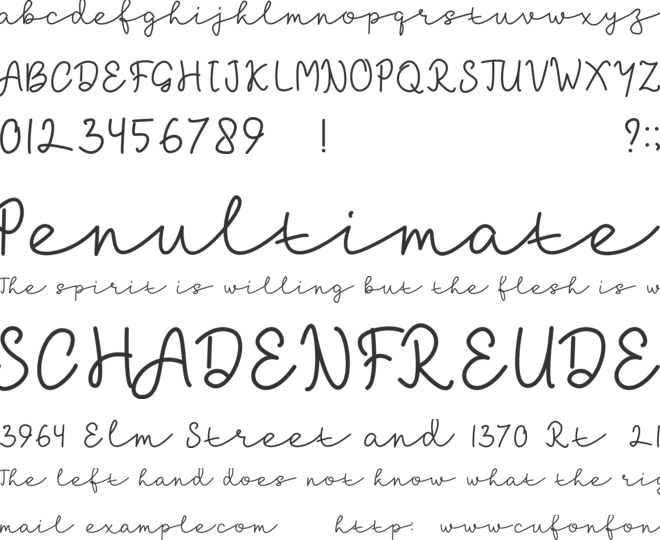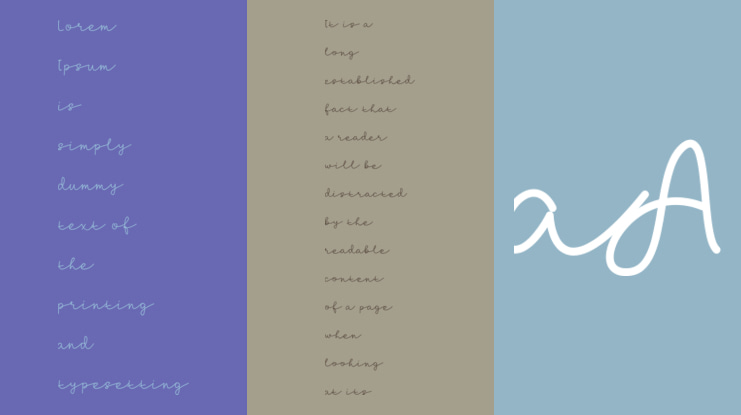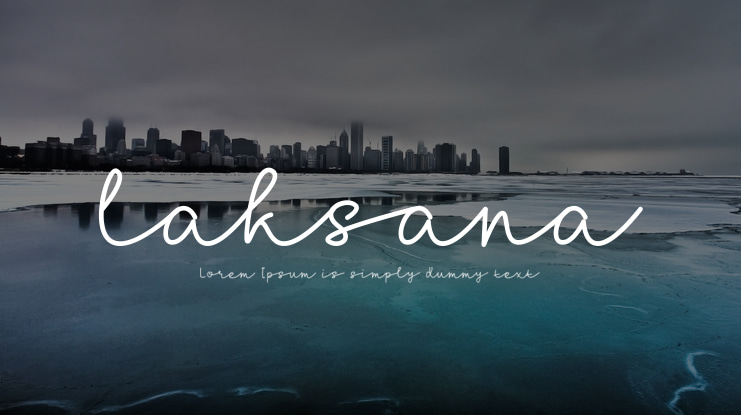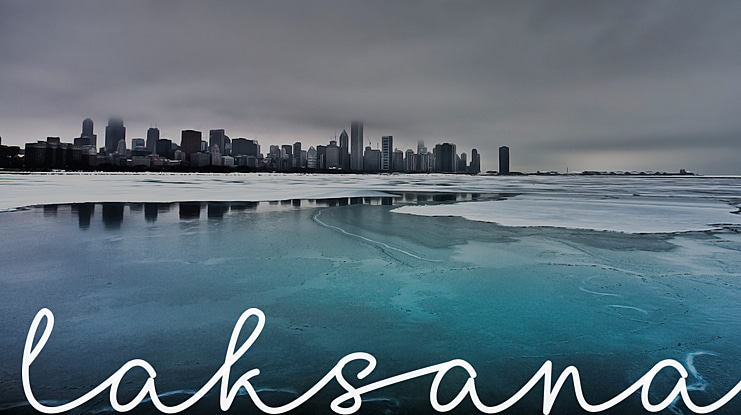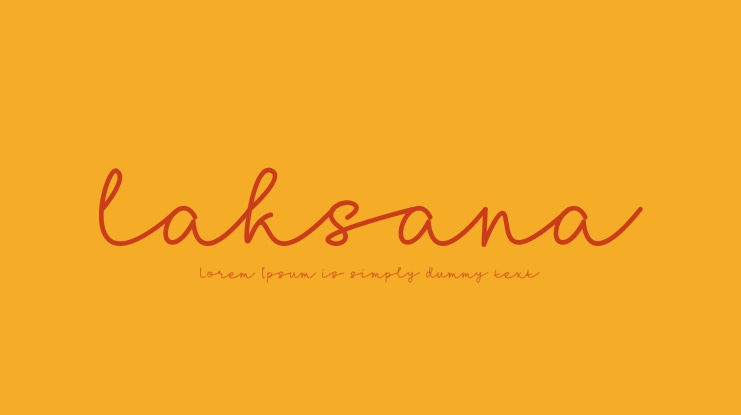
laksana Font
Hi, Good news, I want to intrduce my font Called "laksana" . laksana Font is a signature monoline font. It's very suitable for everything your design needs. I hope you like my product and donate with buy this font :)